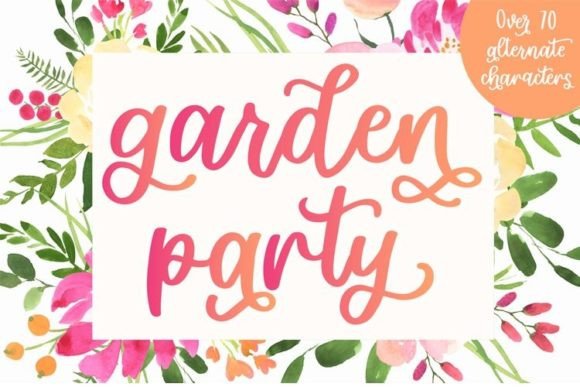
Welcome to the Garden Party Font family, an enchanting collection of script fonts that will transform your creative projects into exquisitely elegant masterpieces. Each character in this font family is lovingly crafted to maintain the classic charm of calligraphy, while simultaneously exuding a refreshing contemporary vibe. Garden Party fonts are designed to make your designs shine, whether you're creating stunning invitations, heartfelt greeting cards, or captivating social media posts.
With Garden Party fonts, you'll experience the joy of effortless creativity. The PUA encoding ensures seamless access to a world of glyphs and ligatures, empowering you to add intricate detailing and personal touches to your projects. Unleash your imagination and let your designs blossom into works of art, capturing the hearts of your audience.
Step into the Garden Party experience today and discover a font family that will captivate your senses and leave an indelible mark on your creative endeavors. Allow Garden Party fonts to guide you on a journey of beauty and elegance, transforming your designs into unforgettable expressions of your artistry.